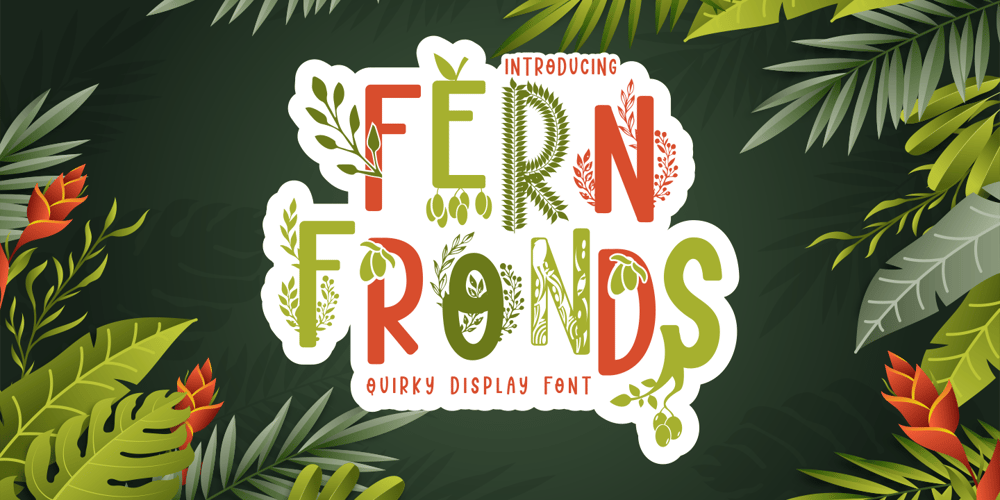
Fern Fronds Font Family was designed by Putra Novembria Candra Kusuma and published by Putracetol. Fern Fronds contains 8 styles and family package options. Are you looking for a font that captures the serene beauty of nature? Do you want to add some lush flair to your designs? If so, you will love Fern Fronds – Quirky Display Font!Fern Fronds is a display font that features quirky letters with intricate details, mirroring the whimsical curves and bends of leaves and flowers. The font exudes a playful yet elegant vibe, making it a perfect choice for a variety of creative projects. The font offers various styles that align with its nature theme, giving you the freedom to use each style independently or mix them for a richer visual experience. It’s not just a font; it’s a tool equipped to bring your nature-themed events or projects to life with its vibrancy and character.